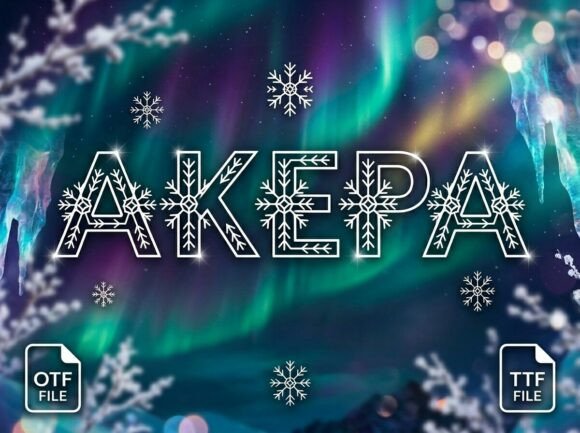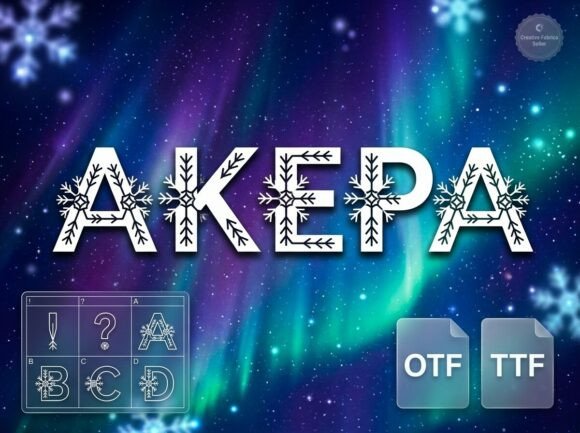
Akepa Font: A Winter Wonderland Dream Come True
I’ll never forget the design struggle I faced when working on a winter-themed project for a client. I wanted to create a festive and enchanting atmosphere, but my font choices were falling flat. That was until I stumbled upon Akepa, a beautiful snowflake alphabet font that instantly transported me to a winter wonderland. In this article, I’ll share my experience with Akepa, its features, and how to make the most of this stunning font.
Akepa: A Personal Review
- ✨ Unique and intricate design: Akepa’s bold, geometric letterforms are intricately built with rhythmic snowflake motifs and delicate crystalline structures embedded within each character.
- ✅ Festive holiday energy: This font exudes a festive and joyful vibe, perfect for winter-themed projects.
- 💫 High-impact visual appeal: Akepa’s frosty details and snowflake patterns make it a showstopper in any design.
While Akepa is an exceptional font, there are a few things to keep in mind:
- 🤔 Legibility at small sizes: Due to its intricate design, Akepa may not be the best choice for body text or small font sizes.
- ⚠️ Limited use cases: While Akepa is perfect for winter-themed projects, it may not be suitable for other design applications.
- Experiment with OpenType features and glyphs to add snowflake patterns and other decorative elements to your text.
The Story Behind Akepa
Akepa was designed by a team of creatives who wanted to capture the magic of winter in a font. Inspired by the intricate patterns of snowflakes, they crafted a unique and enchanting alphabet that’s perfect for winter-themed designs. The name “Akepa” comes from the Hawaiian word for “snowflake,” reflecting the font’s delicate and crystalline structure.
Q: What is Akepa’s design inspiration?
A: Akepa’s design is inspired by the intricate patterns of snowflakes and the magic of winter.
Q: Is Akepa suitable for body text?
A: While Akepa is a beautiful font, it’s best suited for display text or headlines due to its intricate design and potential legibility issues at small sizes.